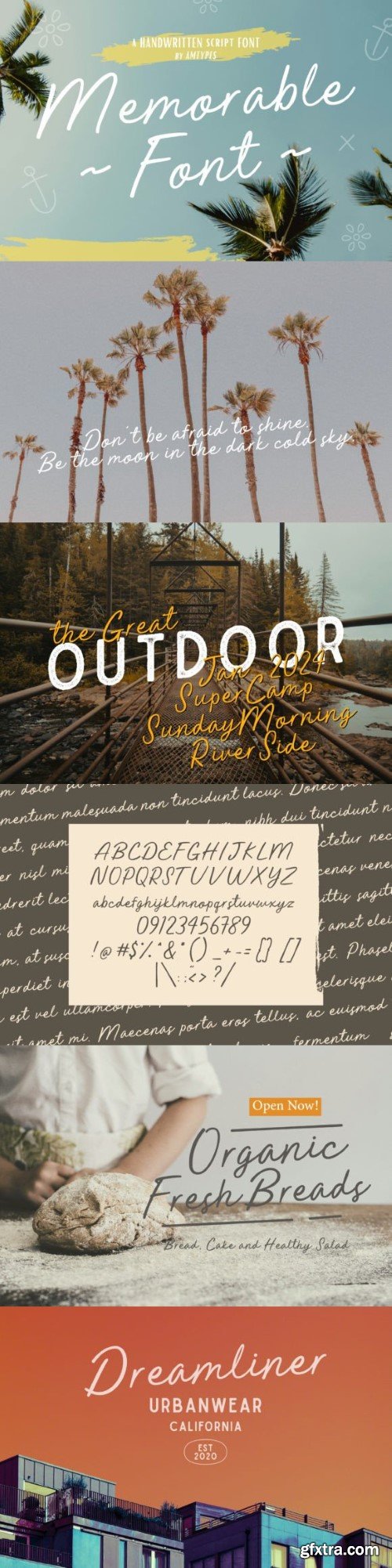
难忘字体
Memorable is a casual script font exuding warmth and charm. Its fluid strokes and gentle curves give a handwritten feel, perfect for adding a personal touch to invitations, greeting cards, and branding materials. With its inviting character, Memorable ensures your message resonates with sincerity and authenticity.